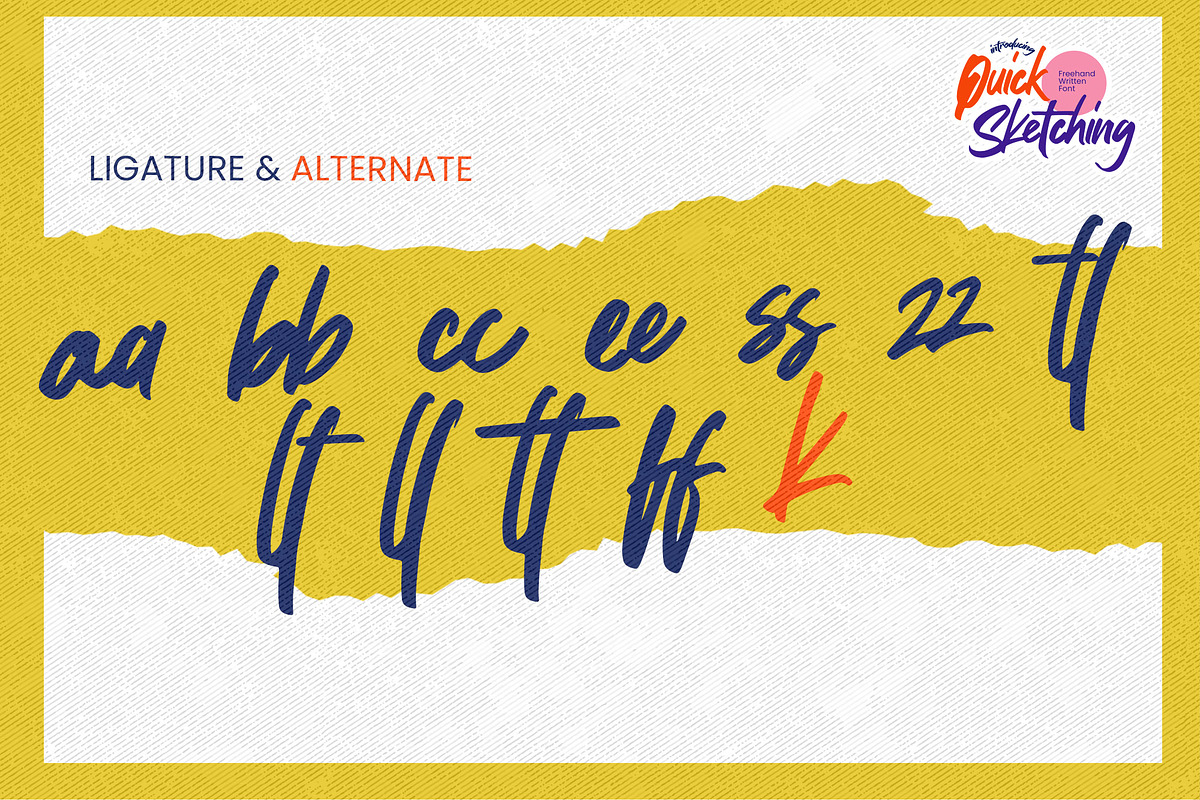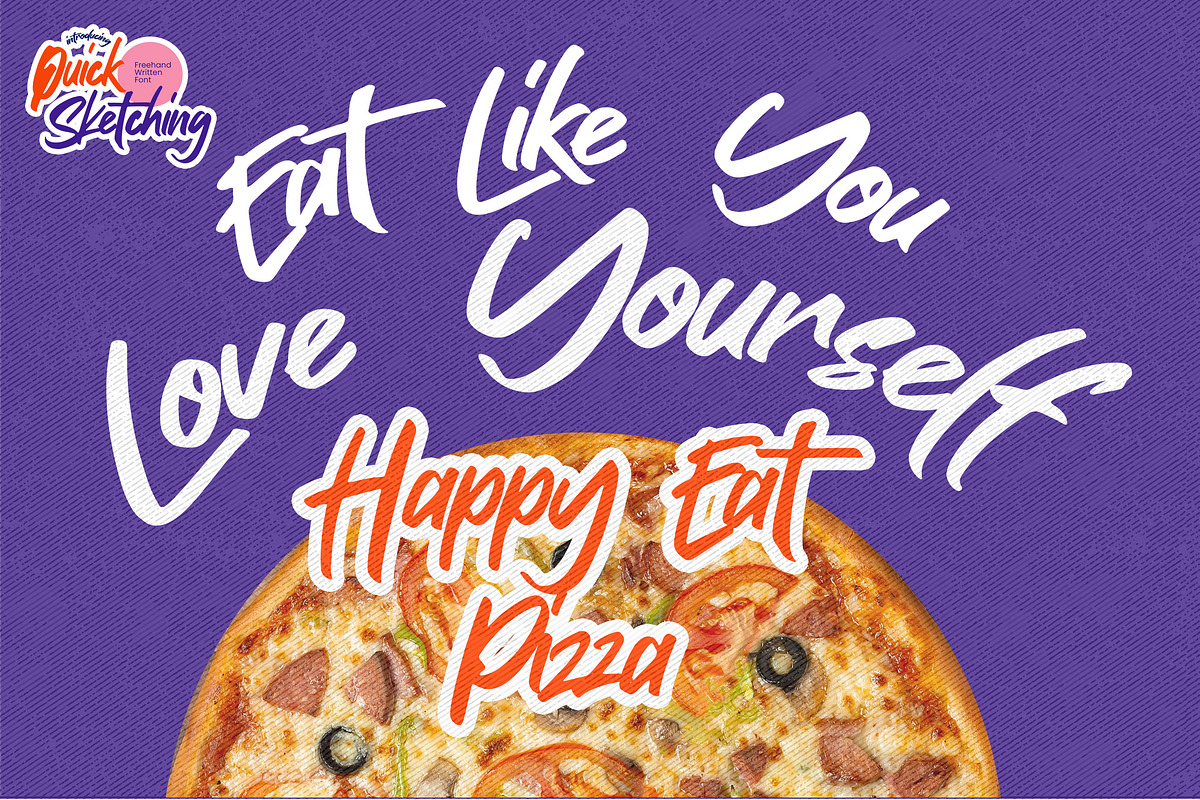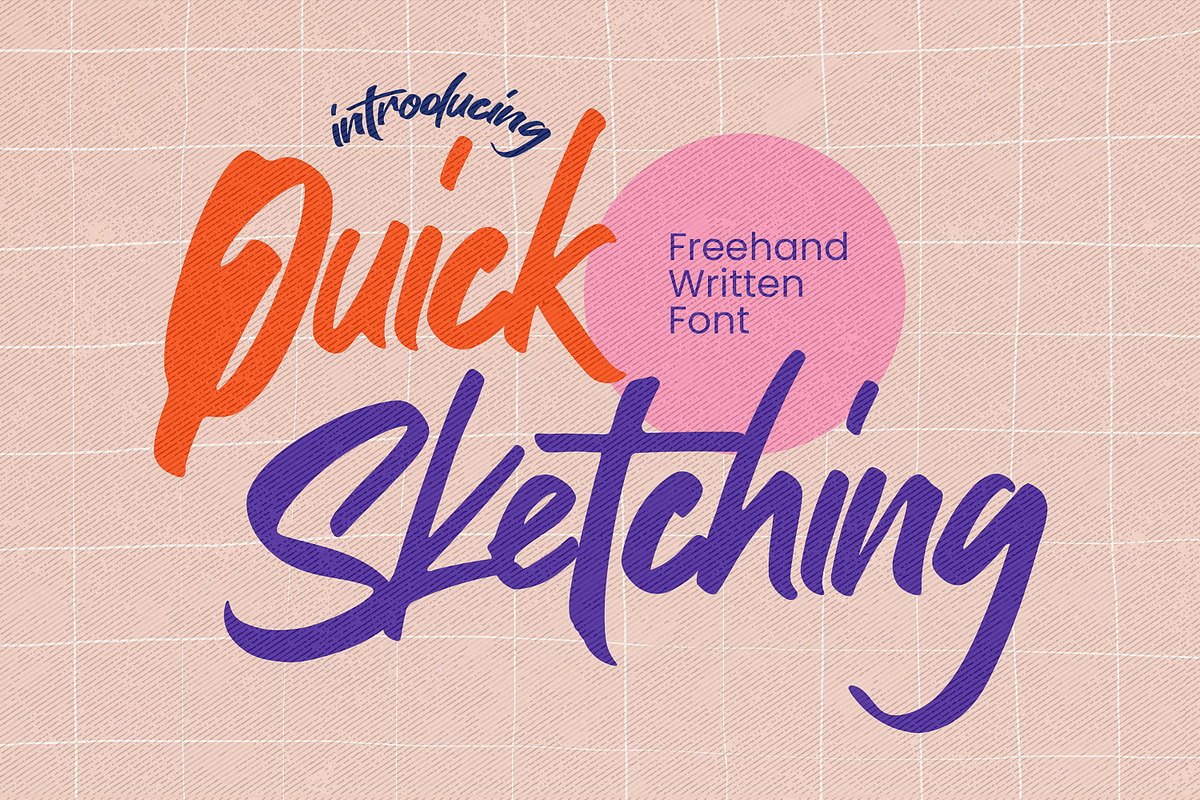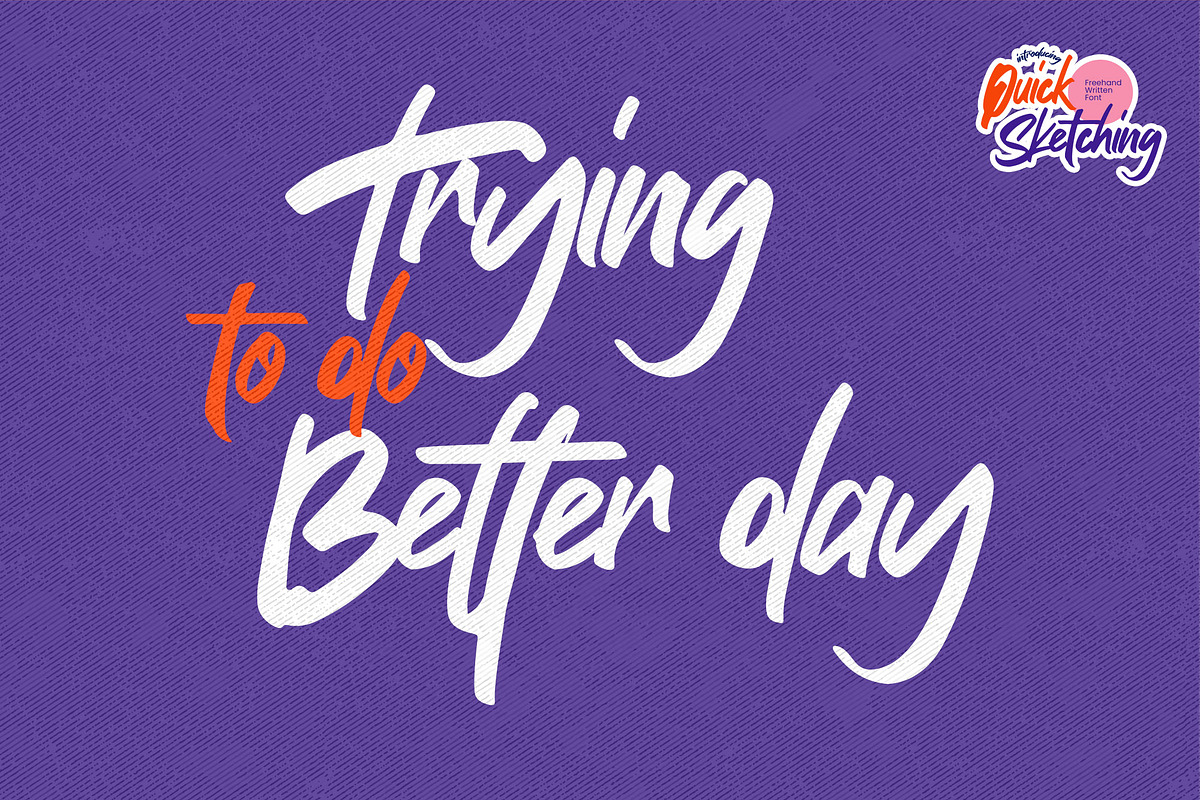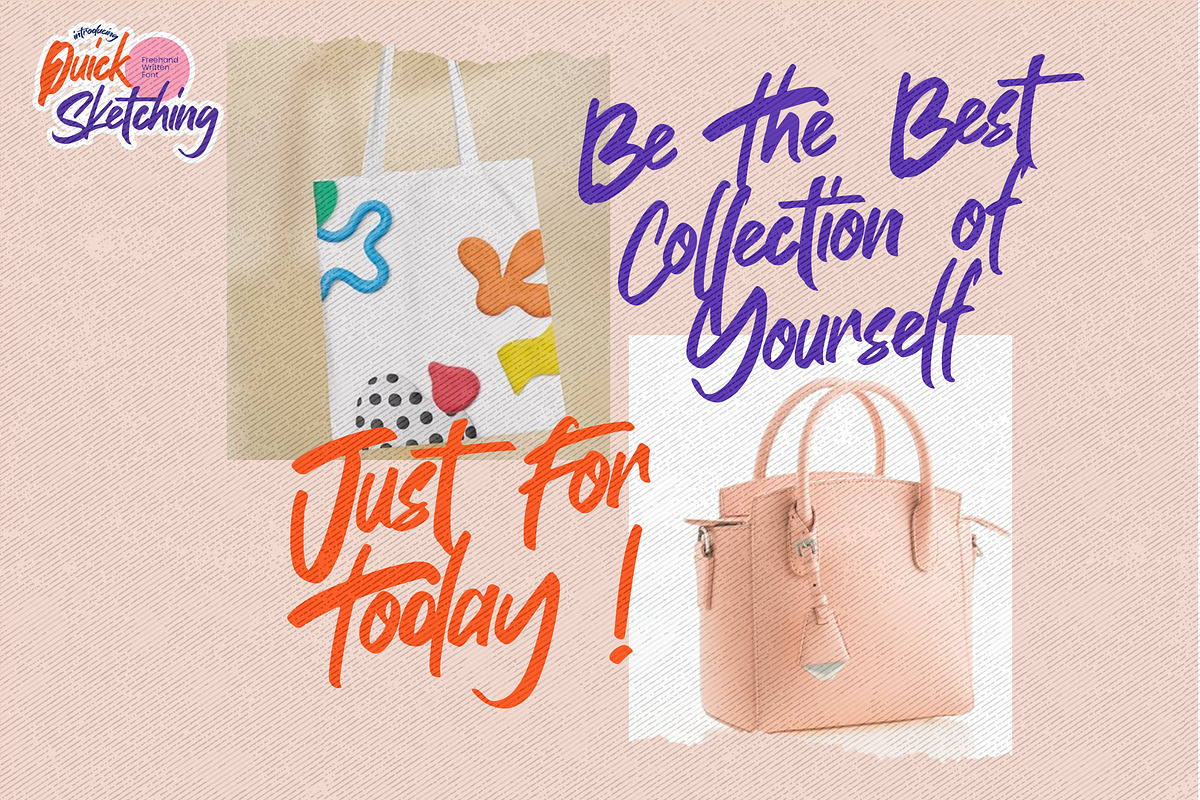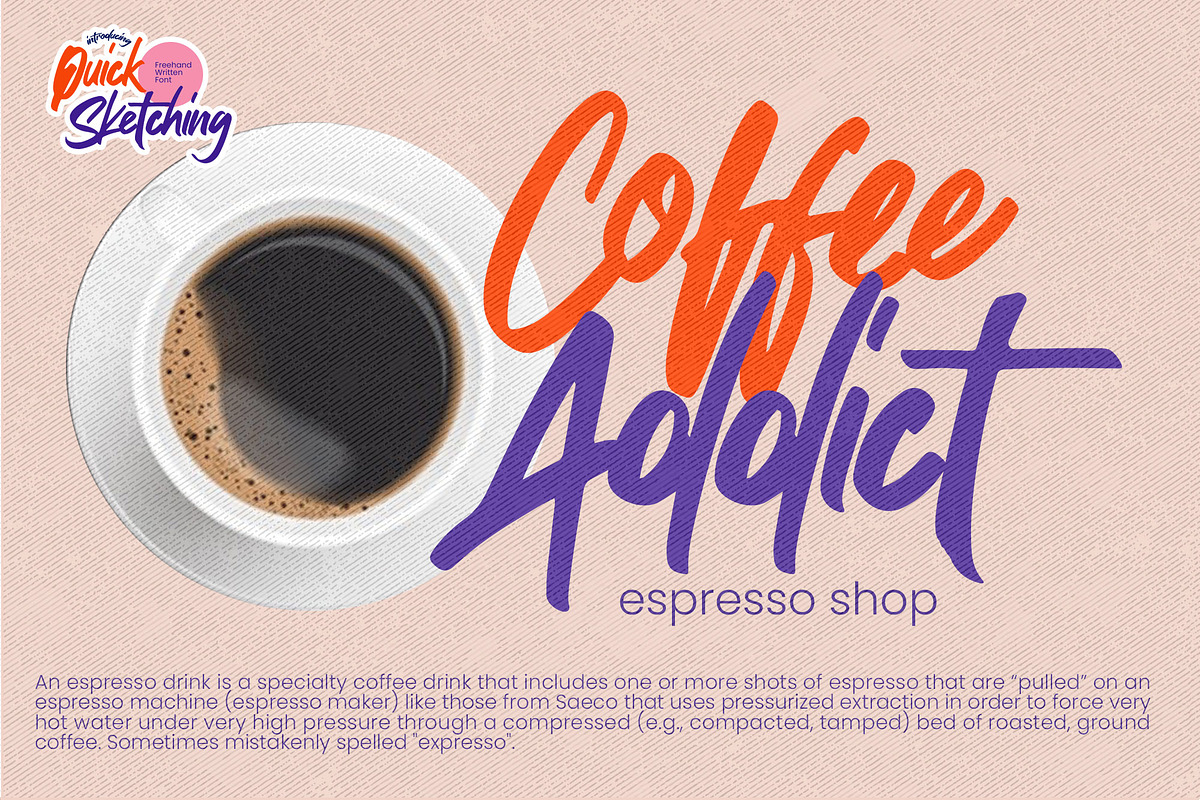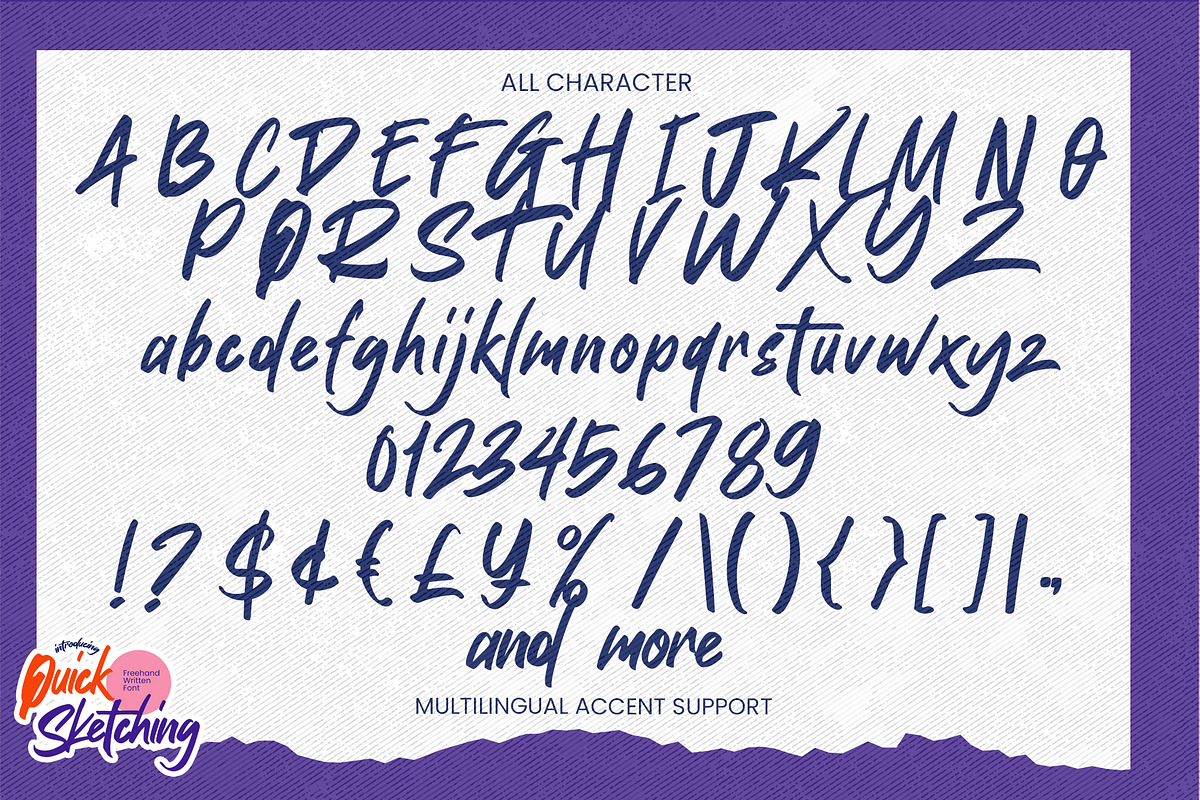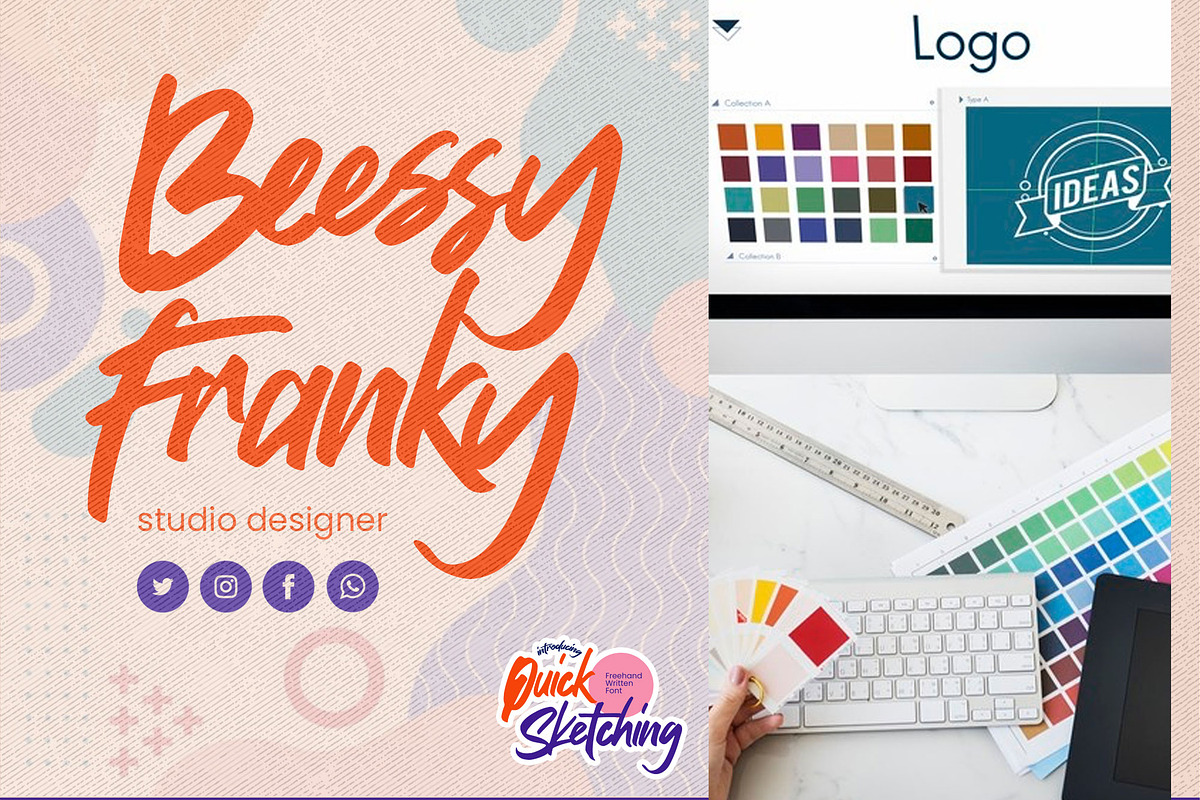
Quick Sketching - Freehand Written
Hello Everyone, introduce our new product Quick Sketching is a Freehand Written Font with a Signature Style and classy style, this font is great for your creative projects such as watermark on photography, and perfect for logos & branding, photography, invitation, watermark,advertisements designs, stationery, wedding designs,label ,product packaging, special events or anything that need handwritting taste. That is why Quick Sketching has authentic and strong characteristic more natural look. You can activate Ligature OpenType panel and alternate glypsh.
- Ligatures glypsh
- Alternate glypsh